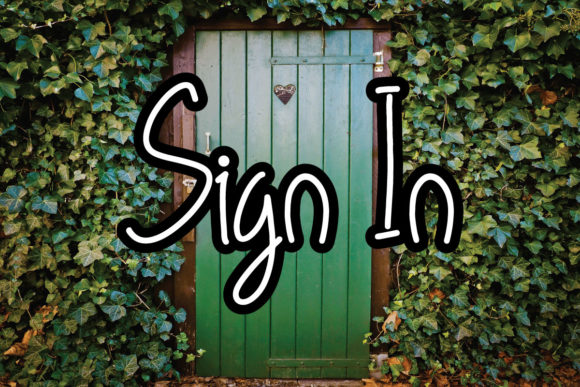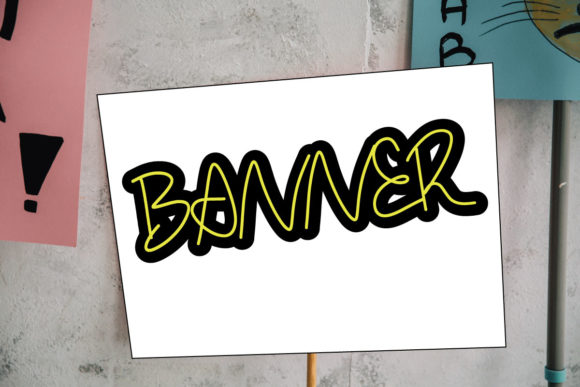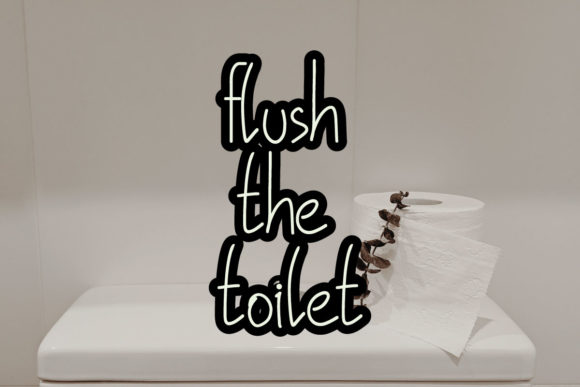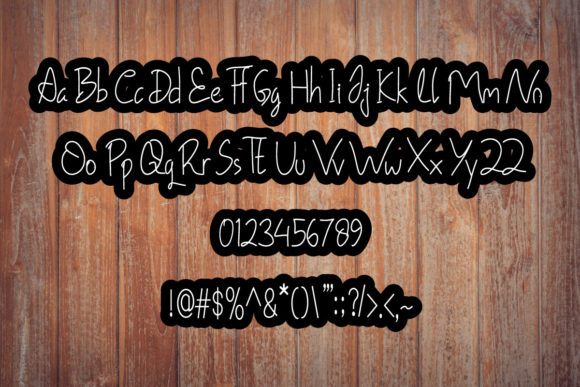
Introduction to Resign Font
Resign is a simple and quirky handwritten font.
This dazzling and friendly font will turn any creative idea into a standout .
Key Features of Resign Font
Why Choose Resign Font?
Resign Font offers exceptional quality and versatility, making it a valuable addition to your design toolkit. Whether you’re creating for personal projects or commercial use, Resign Font delivers professional results.